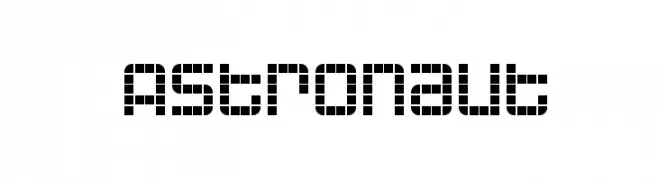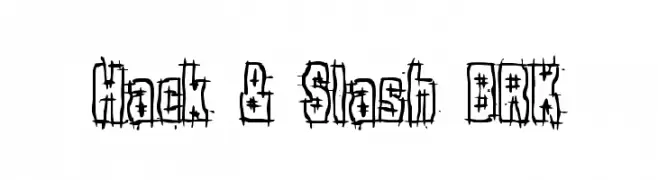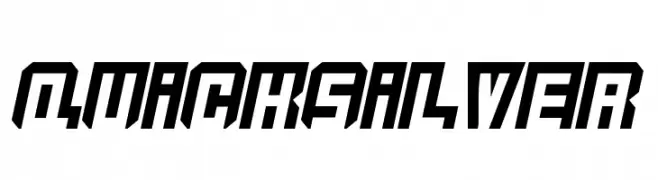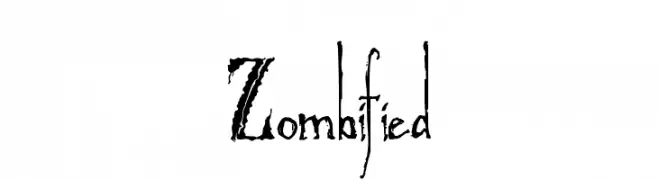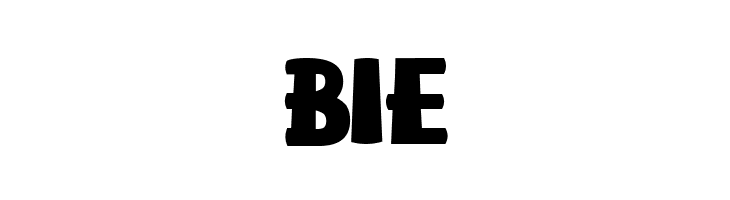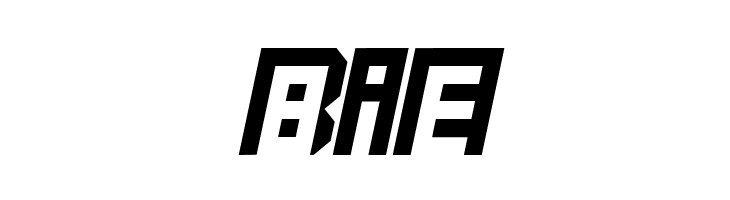
( Fonts by Sinister Visions - Chad Savage - www.sinisterfonts.com )
A spooky, jagged font with a distressed, eerie style perfect for Halloween themes.
( Fonts by Bartek Nowak - www.nowak.tv/fontoholic/ )
A bold, rounded font with a playful and retro vibe.
( Fonts by www.fontalicious.com )
A futuristic, pixelated font with a digital, grid-like design.
( Fonts by Jacob Fisher - www.pizzadude.dk )
A bold, futuristic font with sharp angles and a geometric design.
( Fonts by www.aenigmafonts.com )
A rugged, distressed font with a chaotic, hand-drawn style.
( Fonts by Divide By Zero! - fonts.tom7.com )
A playful collection of hand-drawn smiley and character illustrations.
( Fonts by Cumberland Fontworks - http://www222.pair.com/sjohn/fonts.htm - S. John Ross )
A bold, freehand-style font with dynamic strokes and artistic flair.
( Fonts by David Rakowski )
A bold, textured font with a wood grain effect and a rustic, handcrafted appearance.
( Fonts by www.varian.net )
A bold, rounded sans-serif font with a modern and friendly appearance.
( Fonts by Spork Thug Typography - Josh Wilhelm - www.lifewithouttaffy.com/taffy/blog )
A futuristic, boxy font with a digital and geometric style.